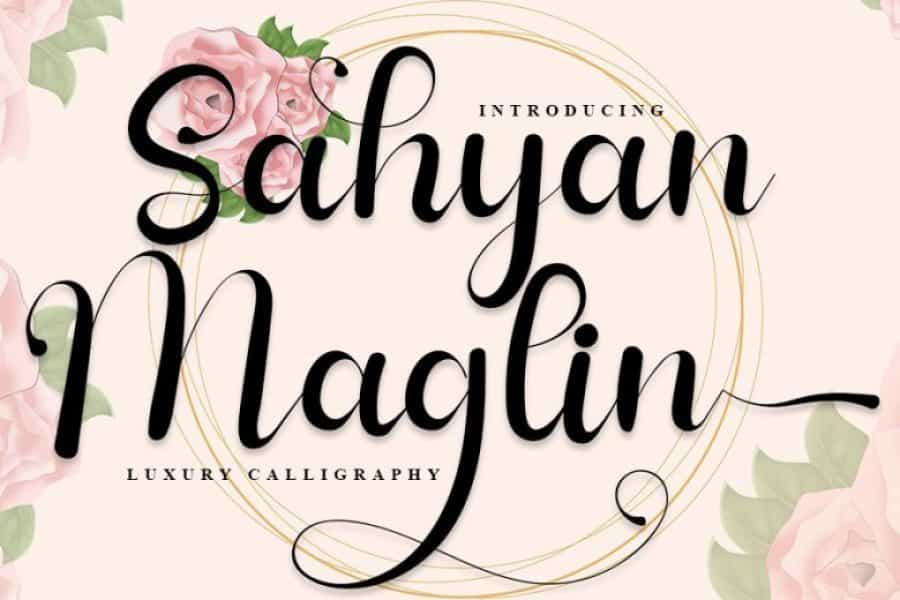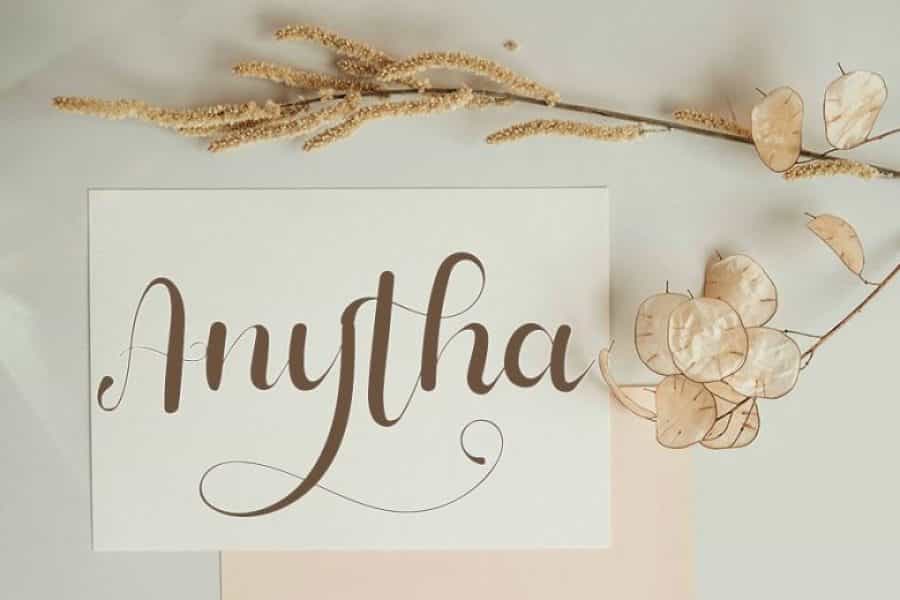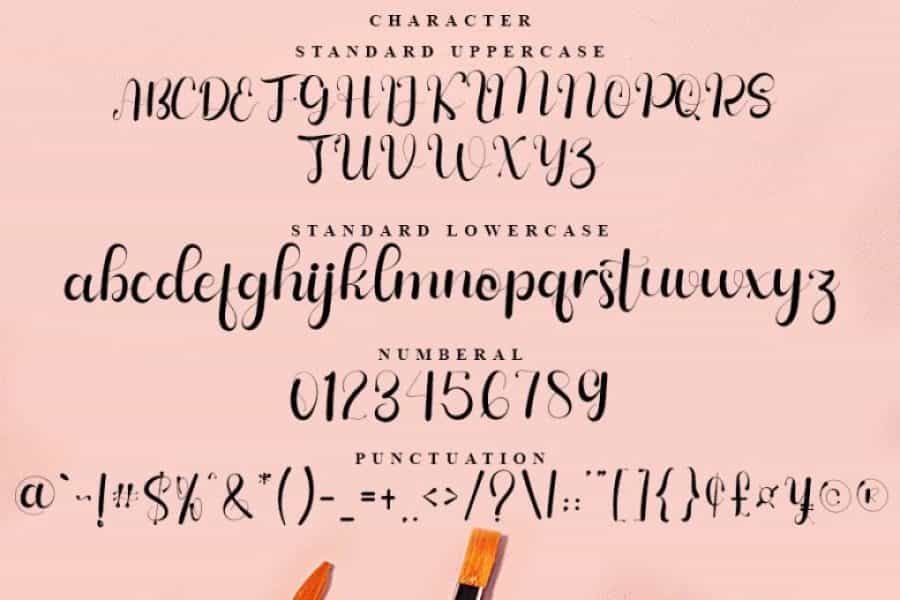
Sahyan Maglin Luxury Calligraphy Font is an incredible font perfect for many occasions such as wedding invitations, logo headliners, t-shirt graphics and YouTube banners and banners. Additionally it can also be used as layers, banner mockups and layers! As PUA encoded it allows access to all its glyphs and swashes easily!